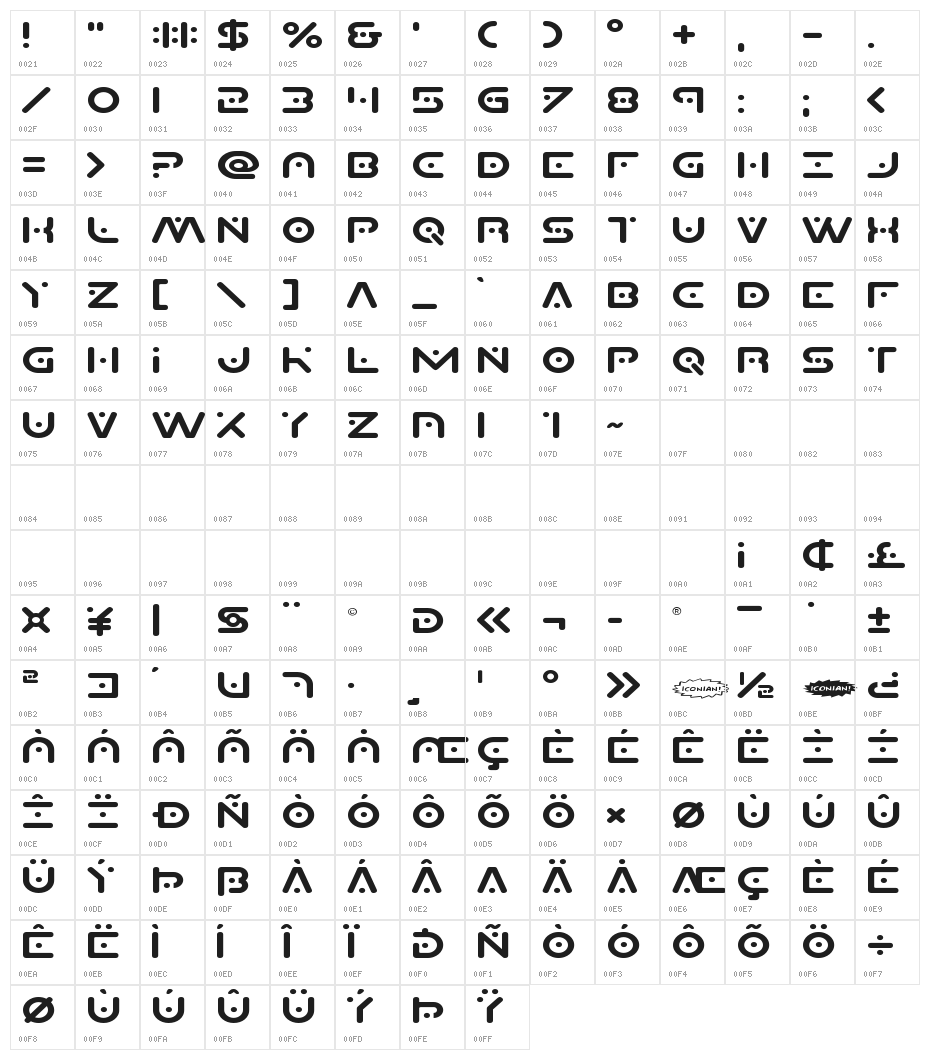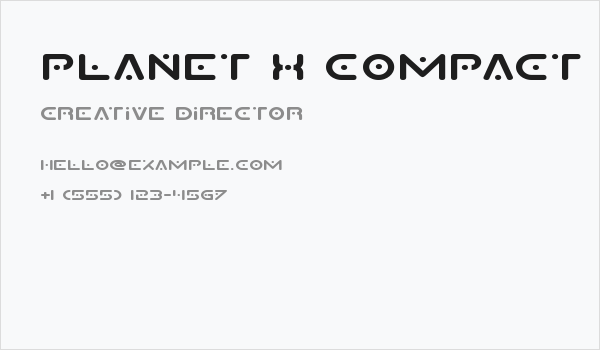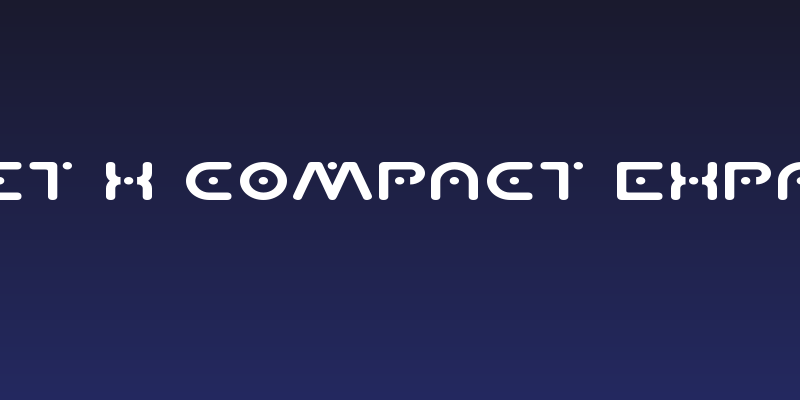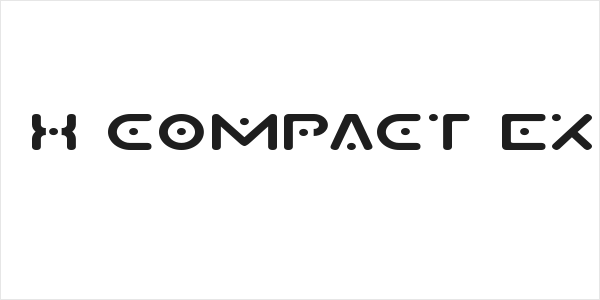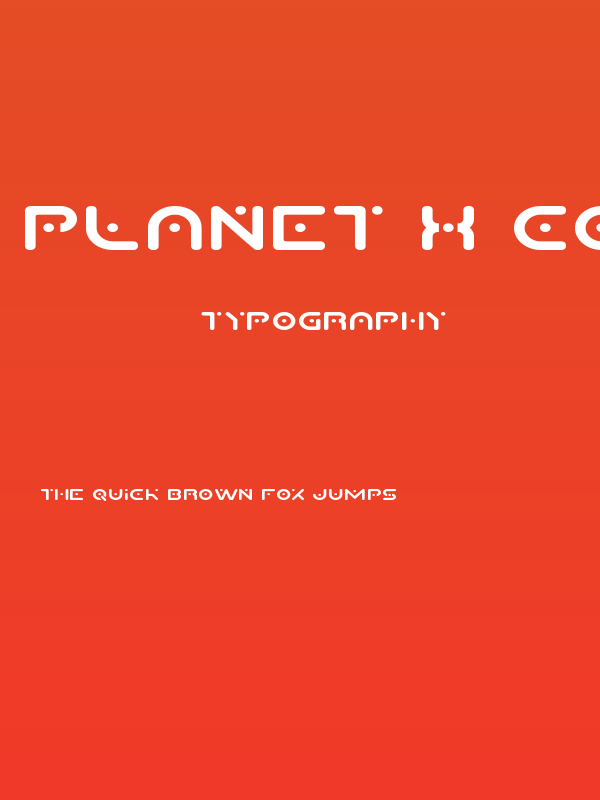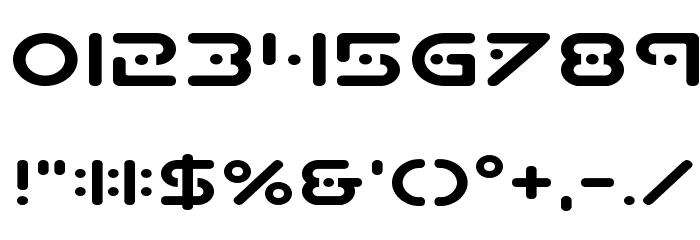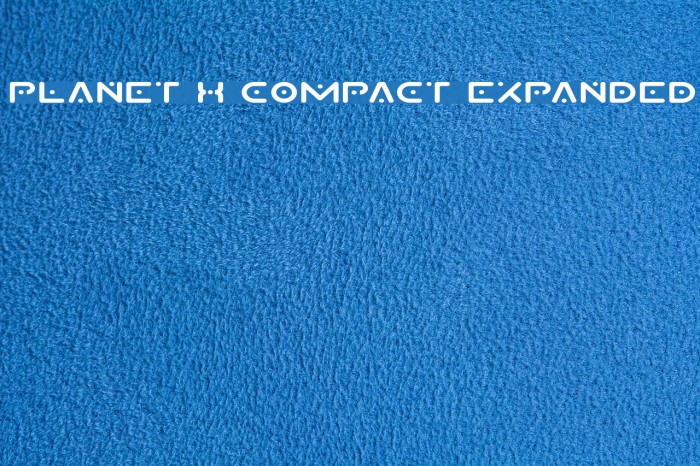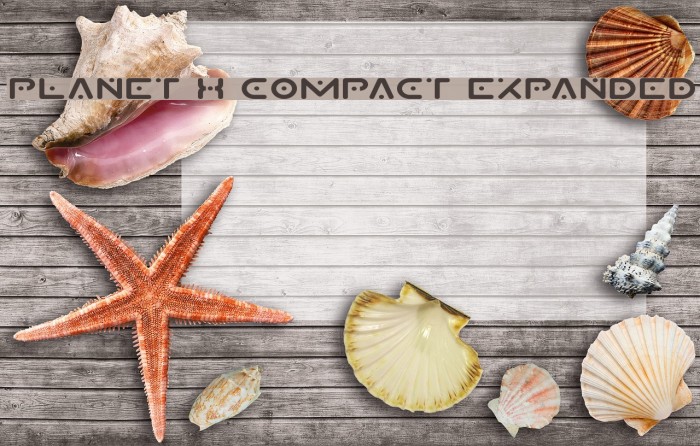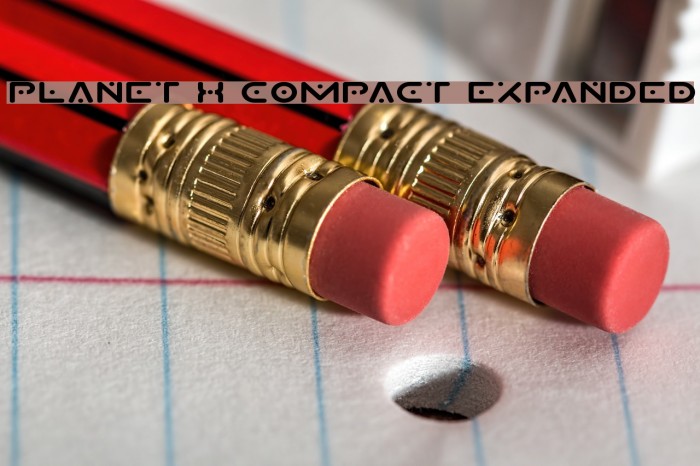
Planet X Compact Expanded Font
Planet X Compact Expanded Description
This futuristic and geometric font features a unique design with rounded edges and distinct cutouts, giving it a modern and technological appearance. The characters are bold and have a consistent stroke width, contributing to a cohesive and structured look. The font's expanded width and spacious character spacing enhance readability while maintaining a stylish and contemporary feel. Its distinctiveness is further emphasized by the use of circular and linear elements within each character, creating a sense of movement and innovation. This font is ideal for projects that require a forward-thinking and dynamic aesthetic.
| Proposed Projects | Ideal for tech branding, sci-fi movie posters, video game titles, and innovative product packaging. |